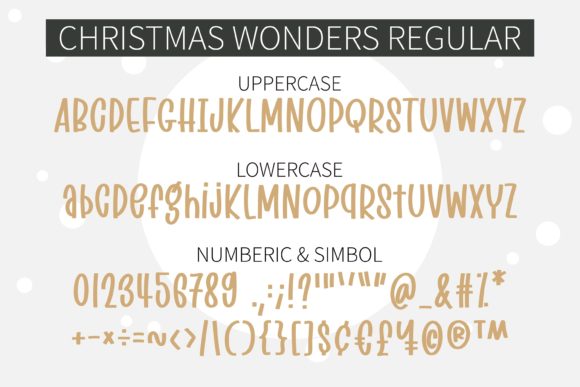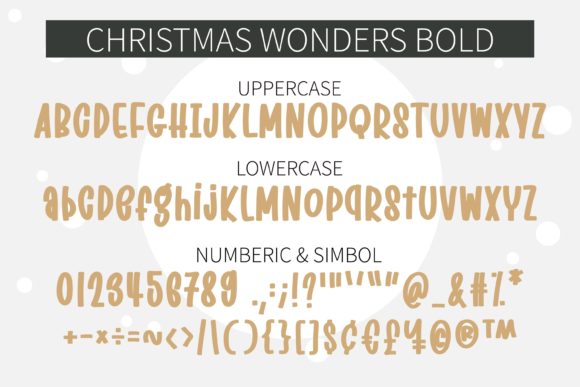
Christmas Wonders Font
db-ku.com - Script & Handwritten -- Christmas Wonders consists of two fonts designed to complement each other perfectly. Together or apart, these fonts are ideal for adding a chic and cheery touch to your crafts. This font is PUA encoded which means you can access all glyphs and swashes with ease!